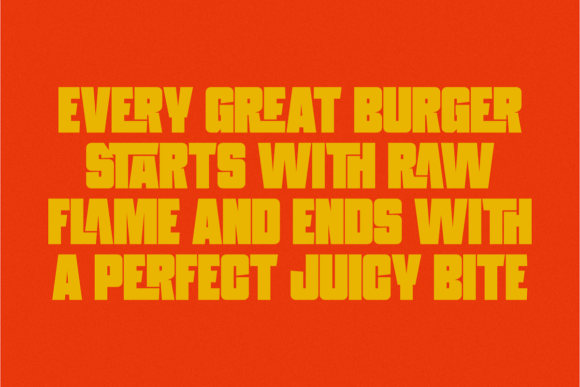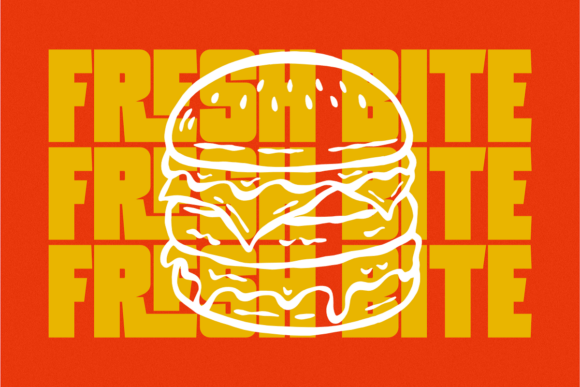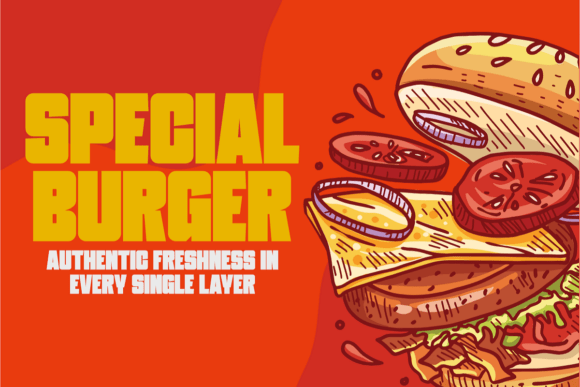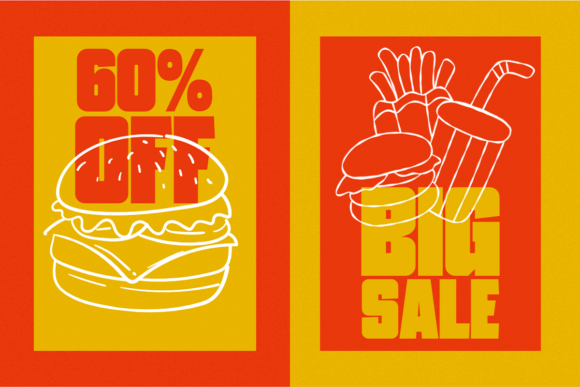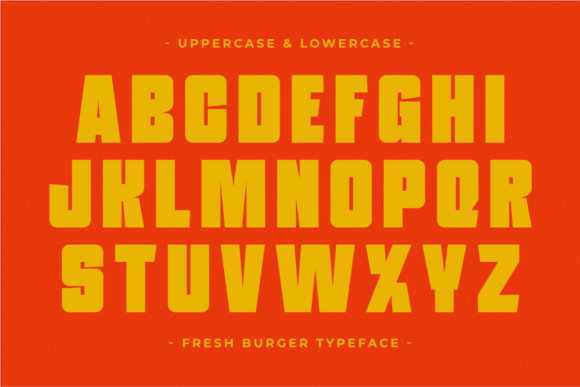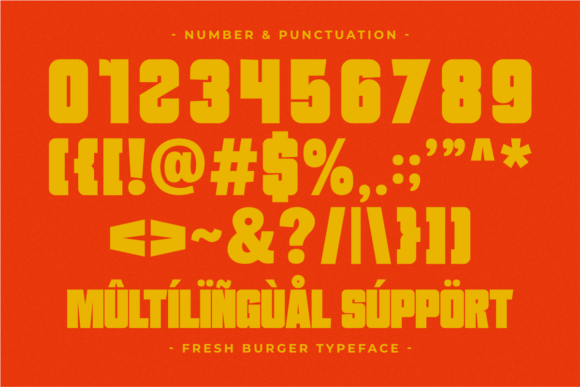
Introduction to Fresh Burger Font Font
Fonts play a crucial role in design, and the Fresh Burger Font font is a typeface that brings both character and versatility to any project. Whether you’re working on a branding project, a website, or a print design, the Fresh Burger Font font offers a unique style that can elevate your work.
Fresh Burger is a mouth-watering and high-impact Modern Display font designed to bring a bold and delicious look to your branding projects.
This chunky, all-caps typeface features unique, artistic ligatures and a solid, blocky structure that is perfect for food branding, restaurant logos, fast food menus, and playful packaging Its thick, clean lines and creative character connections deliver a friendly yet professional visual identity, making it an essential tool for social media headlines, food truck signage, and vibrant advertising posters.
Key Features of Fresh Burger Font Font
Why Choose Fresh Burger Font Font?
The Fresh Burger Font font is more than just a typeface – it’s a design tool that helps you communicate your message with style and clarity. Its unique character set and versatile design make it suitable for a wide range of applications, from elegant invitations to bold headlines.
With its carefully crafted letterforms and balanced proportions, the Fresh Burger Font font ensures readability and visual appeal across all mediums.
What makes Fresh Burger Font font special?
The Fresh Burger Font font stands out with its unique design, exceptional readability, and versatility across various design applications.